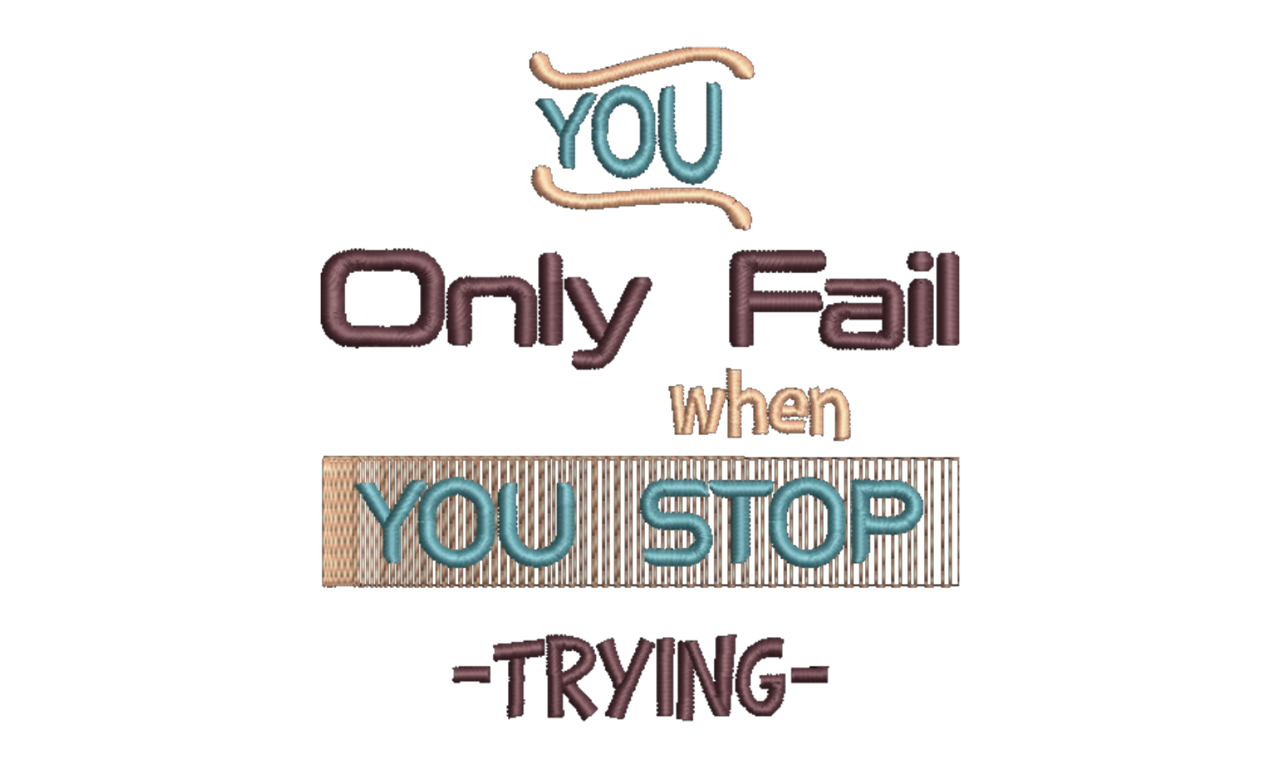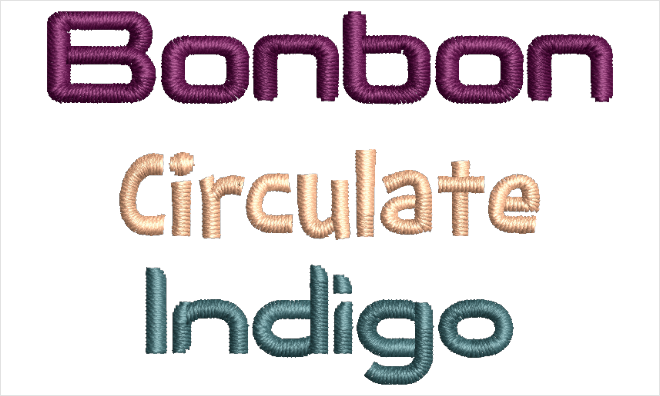
Font Pack #14 - Modern Style
A collection of modern style lettering that will give you an elegant but simple and relaxed look or handwritten and relaxed look. You’ll find fonts with a futuristic to fun and playful styles in this collection.
Bonbon
This font has a curved edged box style. Great for futuristic look
Circulate
Great for fun and playful sayings
Indigo
Fluid but clear style. Great for soft futuristic look
A collection of modern style lettering that will give you an elegant but simple and relaxed look or handwritten and relaxed look. You’ll find fonts with a futuristic to fun and playful styles in this collection.